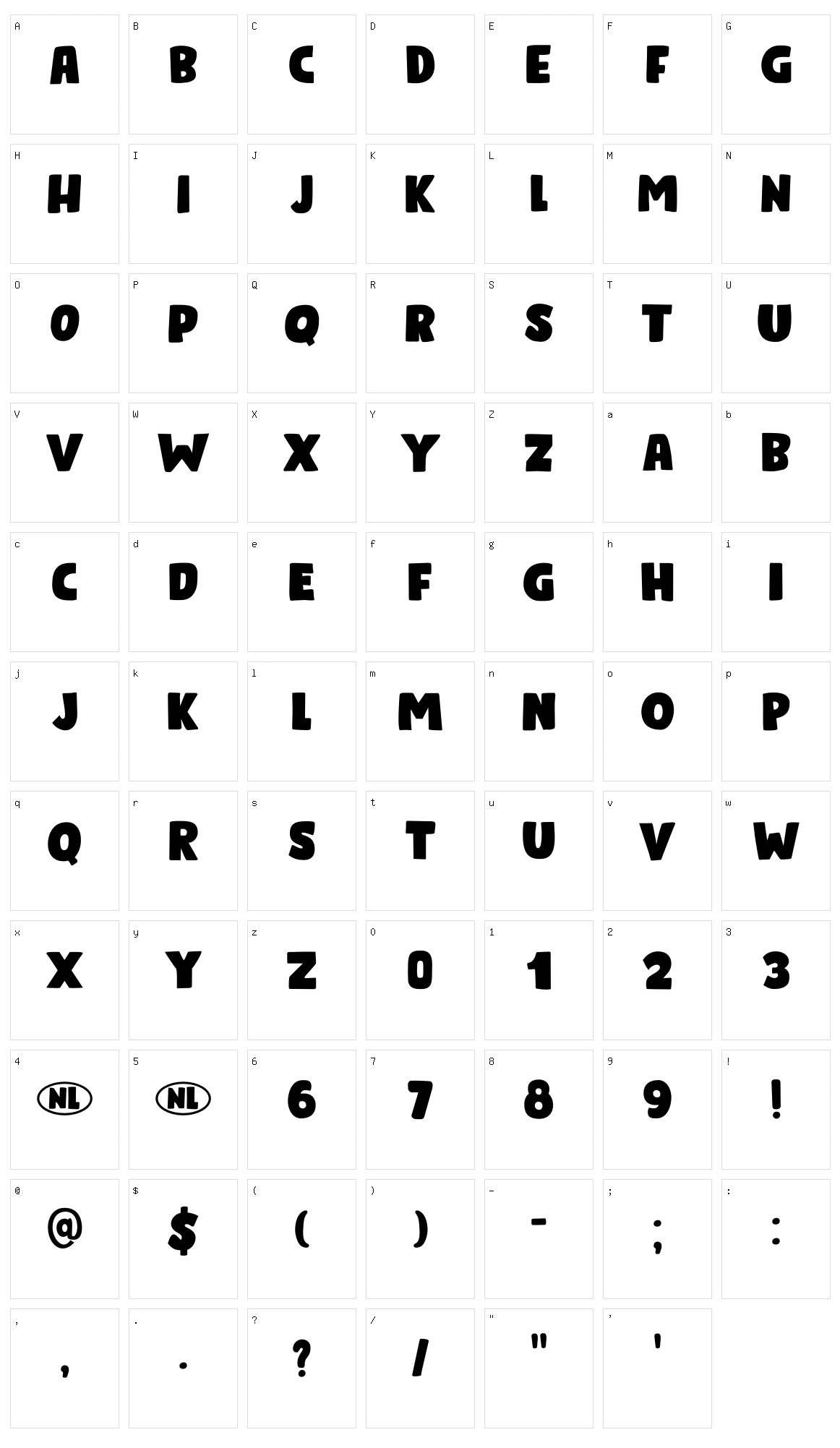
The free font Bumper Sticker is carefully designed by Hanoded, showcasing a thoughtful balance of creativity and usability and falls under the Cartoon font style. When you download the ZIP file, it contains only 176.32 KB of font files, making it lightweight and quick to download. Please review the license details below to understand permitted usage and distribution rights. If license information is not available, we recommend using this font for personal projects only or contacting the author directly for commercial usage permissions.